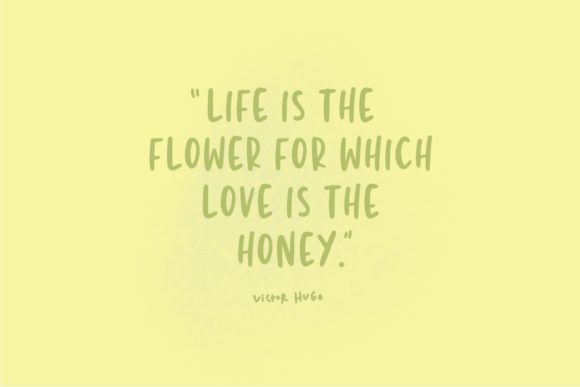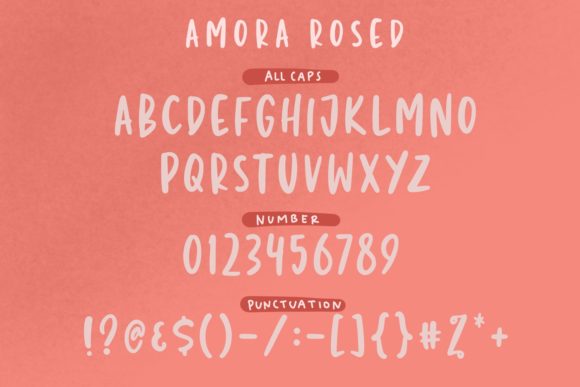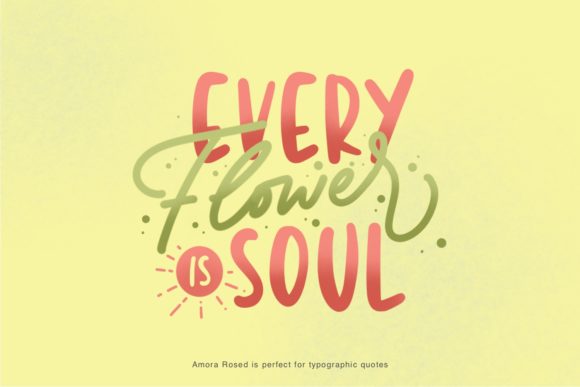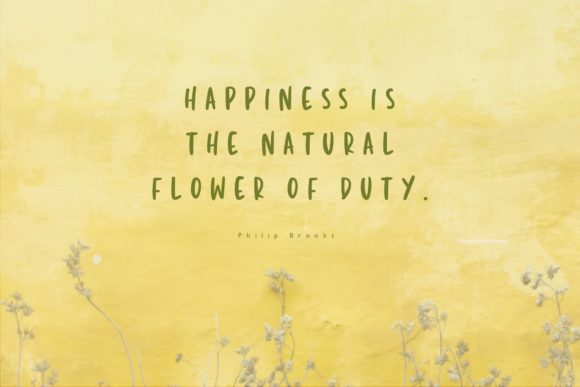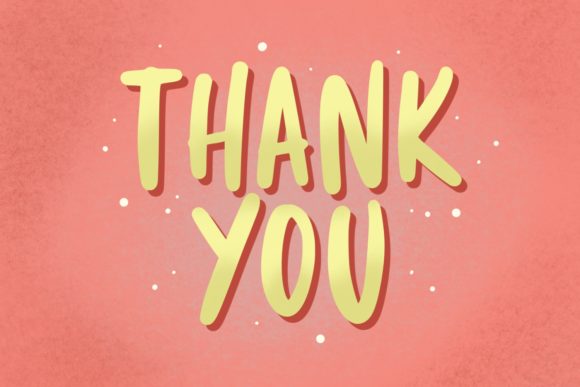
Introducing Amora Rosed: The Fun and Friendly Handwritten Font to Elevate Your Designs
Are you tired of using the same old fonts in your designs? Do you want to add a touch of personality and whimsy to your creative projects? Look no further than Amora Rosed, a fun and friendly handwritten font that’s sure to make your designs stand out. In this article, we’ll take a closer look at Amora Rosed and explore how this beautiful font can elevate your designs and take them to the next level.
What is Amora Rosed?
Amora Rosed is a carefully crafted handwritten font that’s designed to add a touch of fun and friendliness to your designs. With its playful and approachable vibe, this font is perfect for designers and crafters who want to create unique and eye-catching projects. Whether you’re working on a branding project, a craft tutorial, or a social media graphic, Amora Rosed is the perfect choice.
Key Features of Amora Rosed
So, what makes Amora Rosed so special? Here are just a few of the key features that set this font apart:
- Handwritten charm: Amora Rosed has a beautifully handwritten feel that’s perfect for adding a personal touch to your designs.
- Fun and friendly vibe: This font has a playful and approachable vibe that’s sure to make your designs stand out.
- Easy to read: Despite its playful feel, Amora Rosed is still easy to read, making it perfect for use in a variety of design projects.
- Versatile: This font can be used in a wide range of design projects, from branding and advertising to crafting and social media.
How to Use Amora Rosed in Your Designs
So, how can you use Amora Rosed in your designs? Here are just a few ideas to get you started:
- Branding projects: Use Amora Rosed to create unique and eye-catching branding materials, such as logos, business cards, and brochures.
- Craft tutorials: Add a personal touch to your craft tutorials with Amora Rosed, perfect for creating handmade cards, gift tags, and other paper crafts.
- Social media graphics: Use Amora Rosed to create fun and engaging social media graphics, such as Facebook posts, Instagram stories, and Pinterest pins.
- Party decorations: Create custom party decorations, such as banners, garlands, and invitations, with Amora Rosed.
Tips for Getting the Most Out of Amora Rosed
Here are just a few tips for getting the most out of Amora Rosed:
- Experiment with different colors: Amora Rosed looks great in a variety of colors, so don’t be afraid to experiment and find the perfect hue for your design.
- Mix and match with other fonts: Try pairing Amora Rosed with other fonts to create a unique and eye-catching look.
- Use it sparingly: While Amora Rosed is a beautiful font, it can be overwhelming if used too much. Use it sparingly to add a touch of personality to your designs.